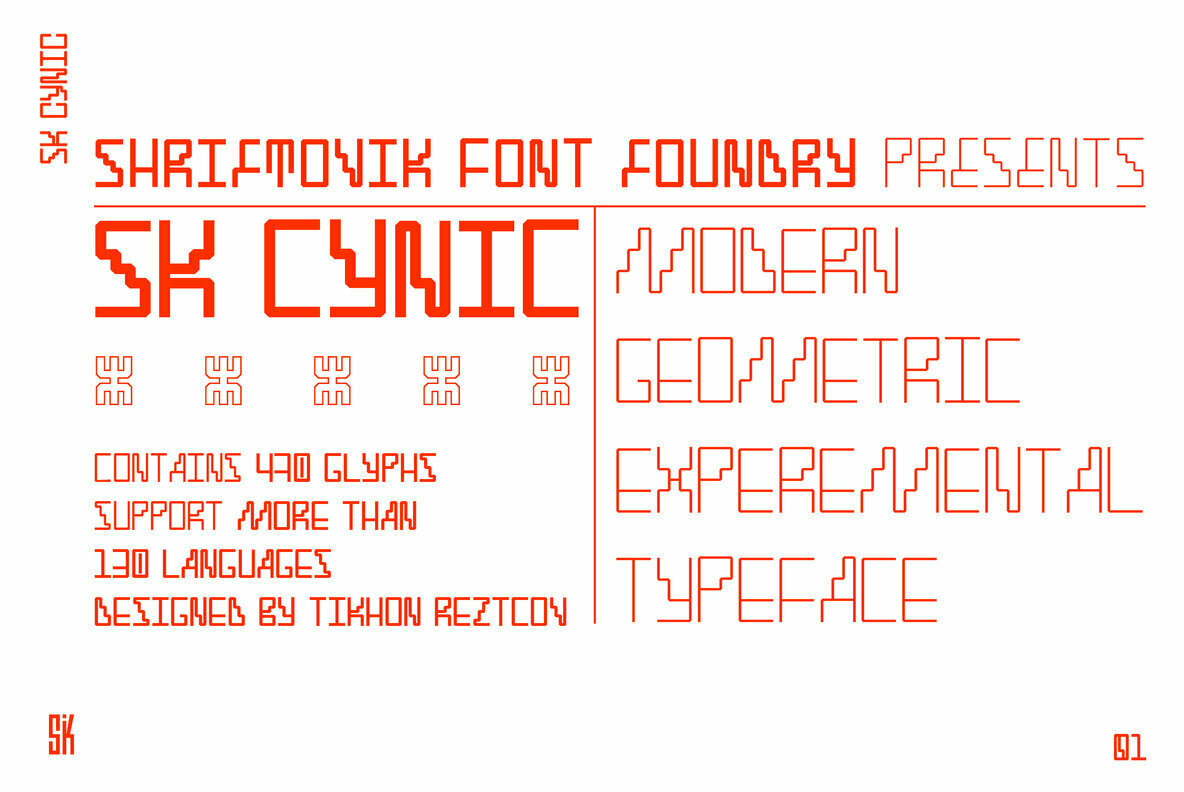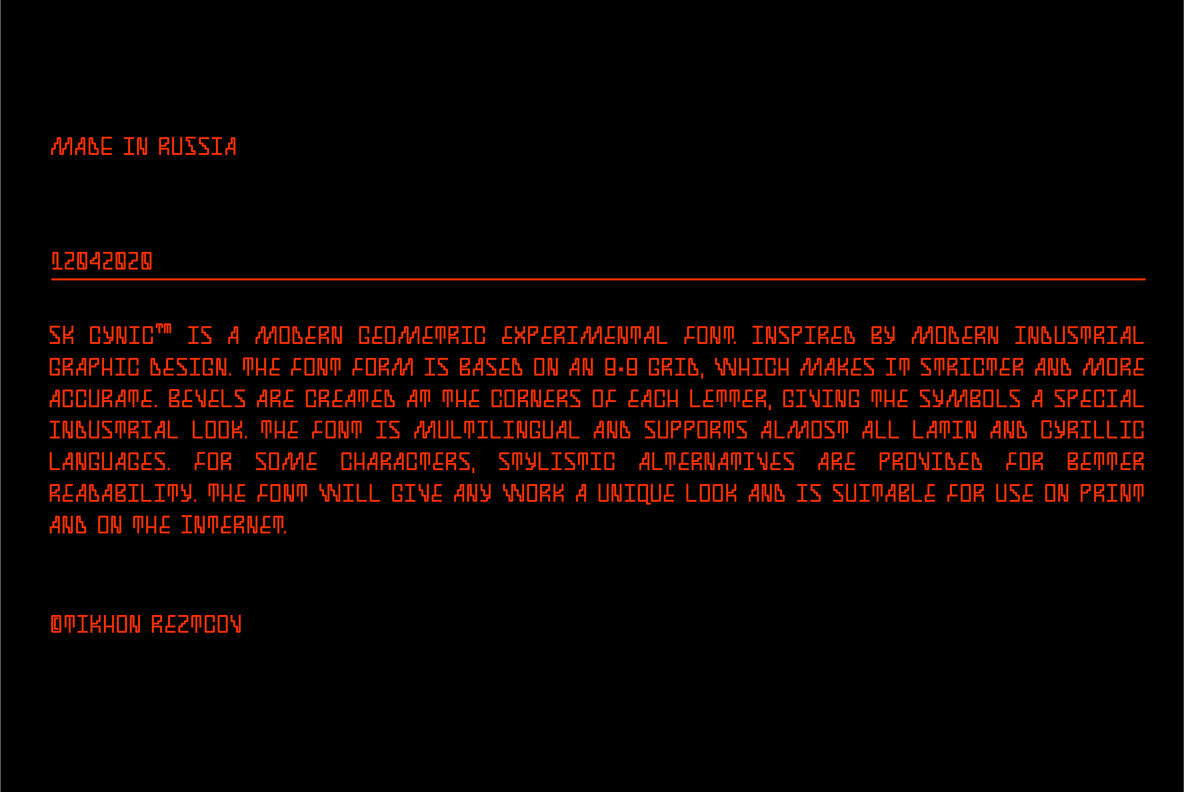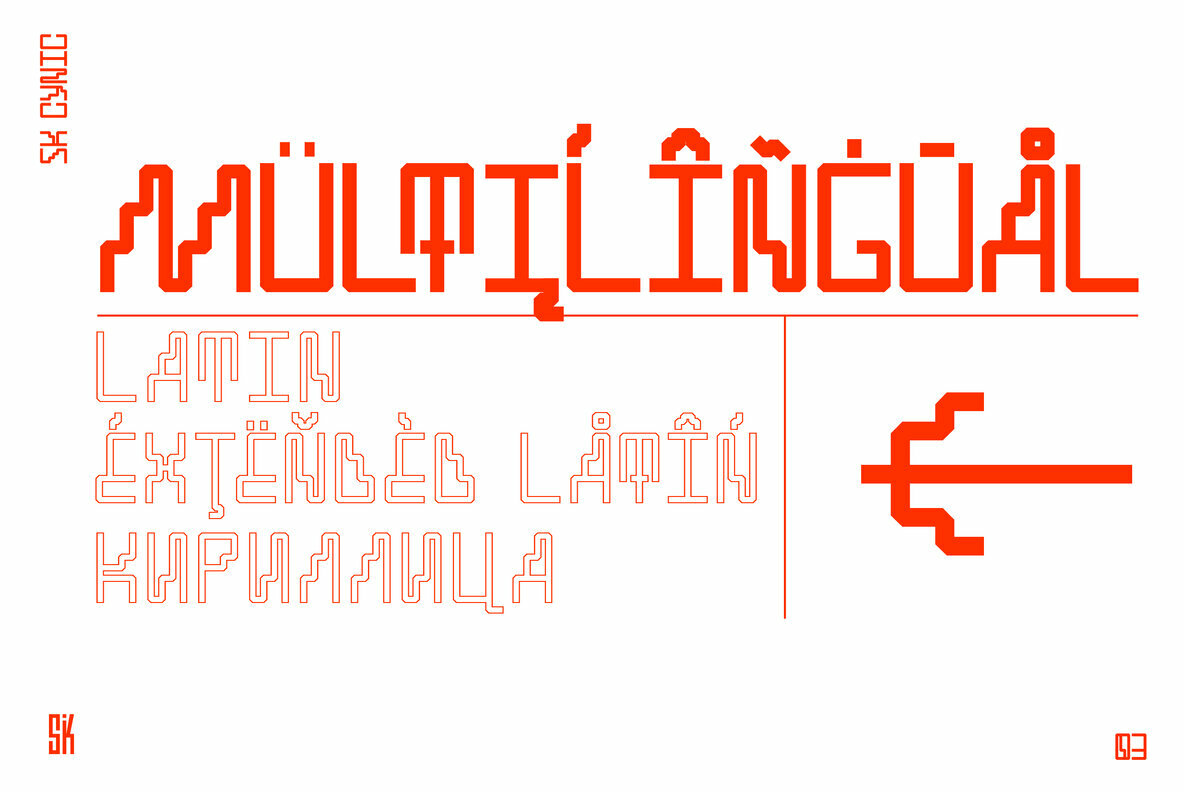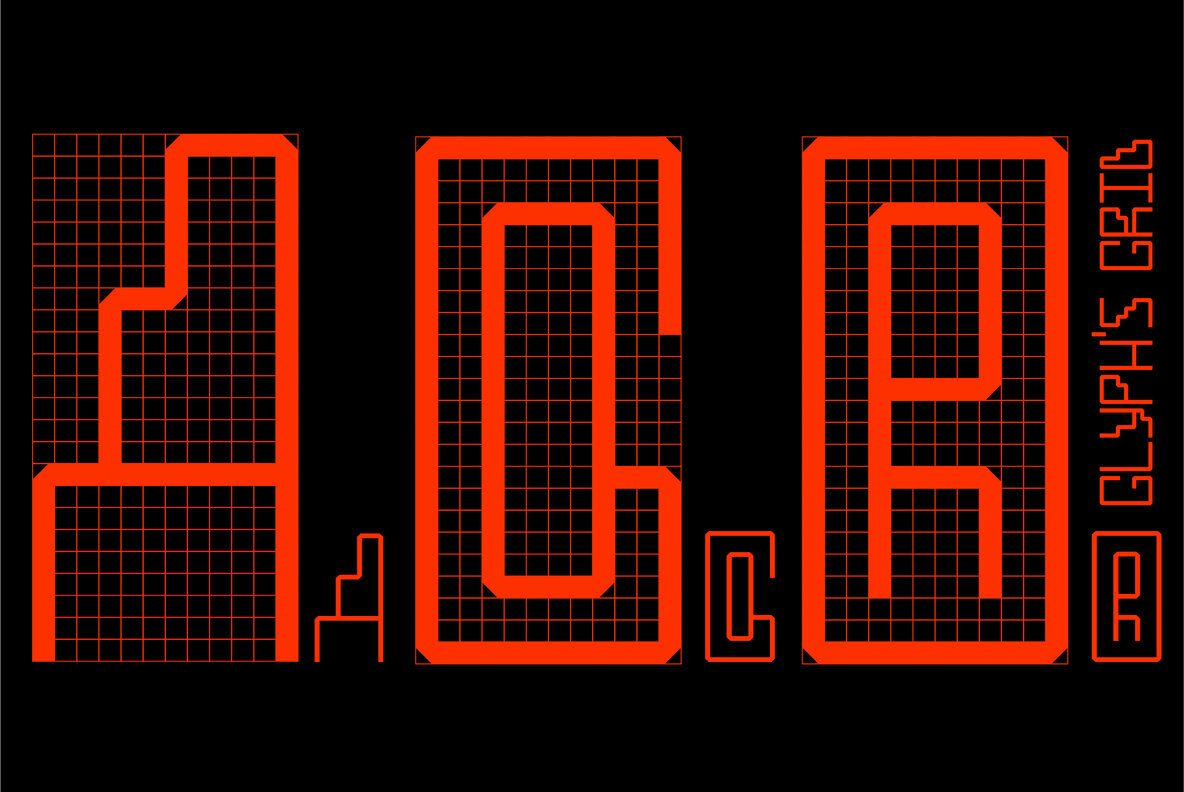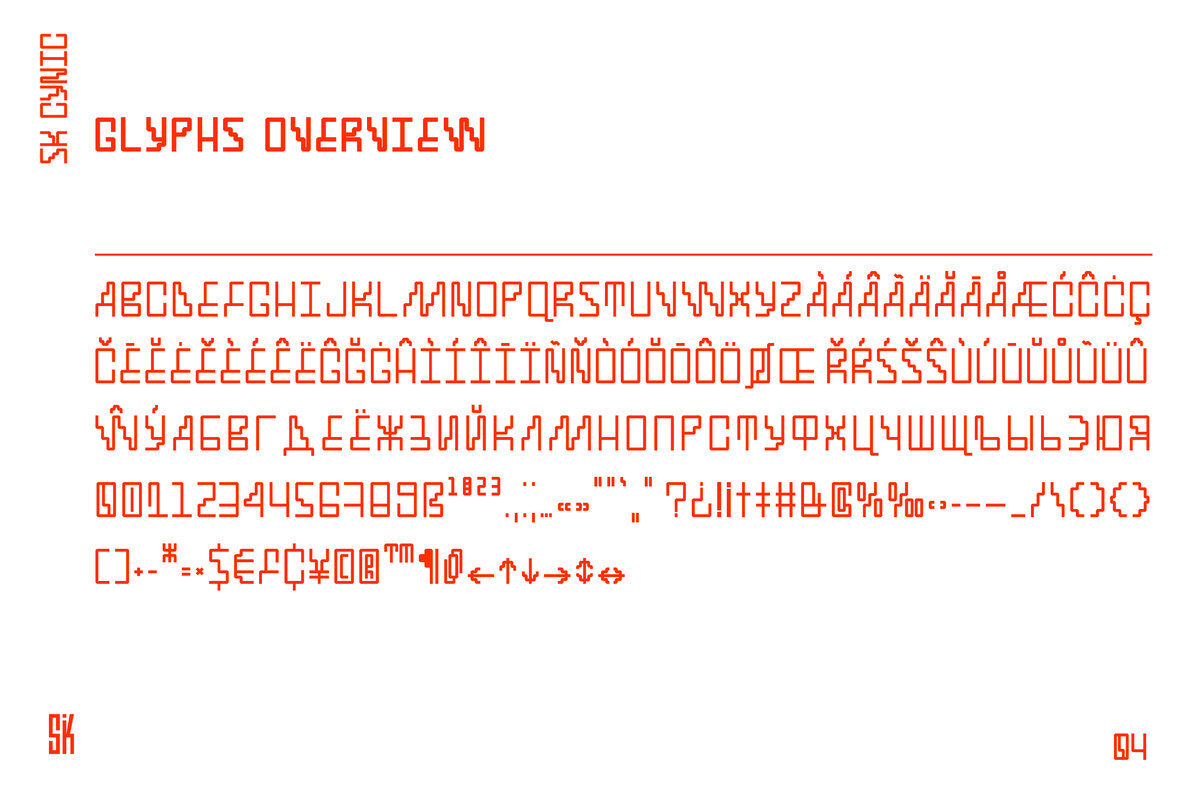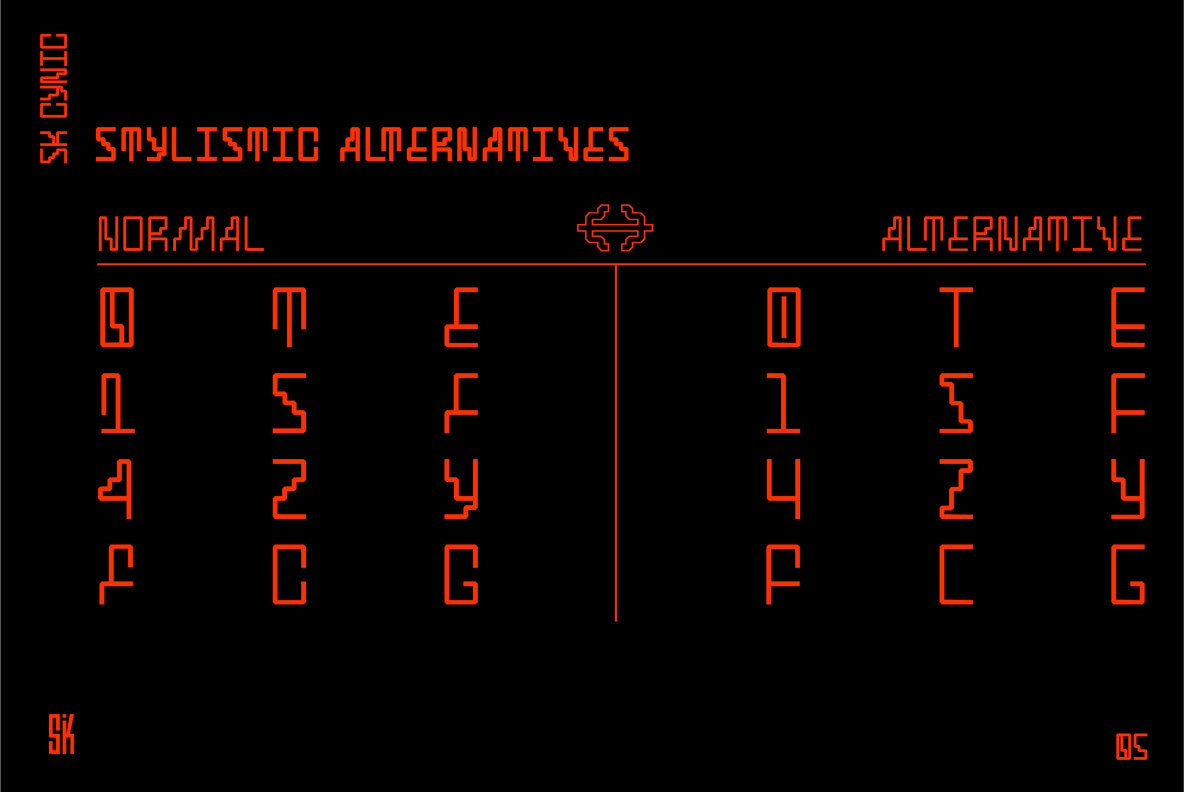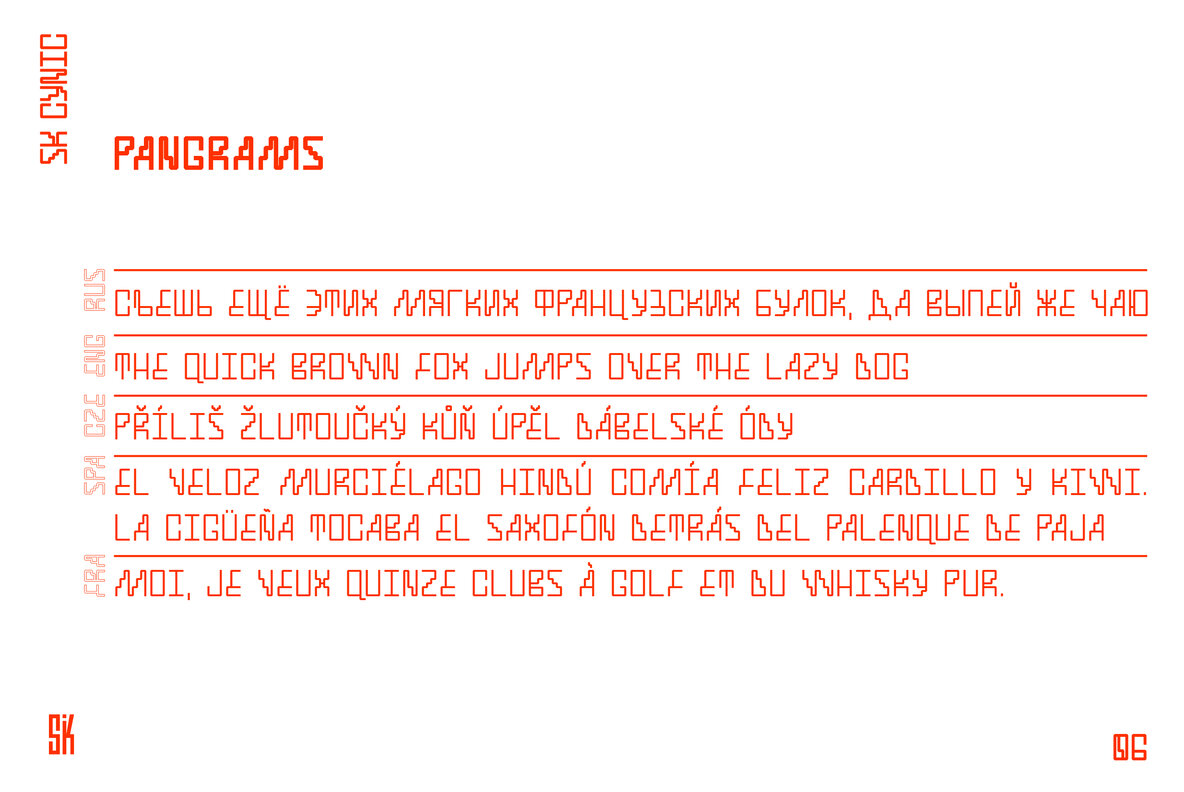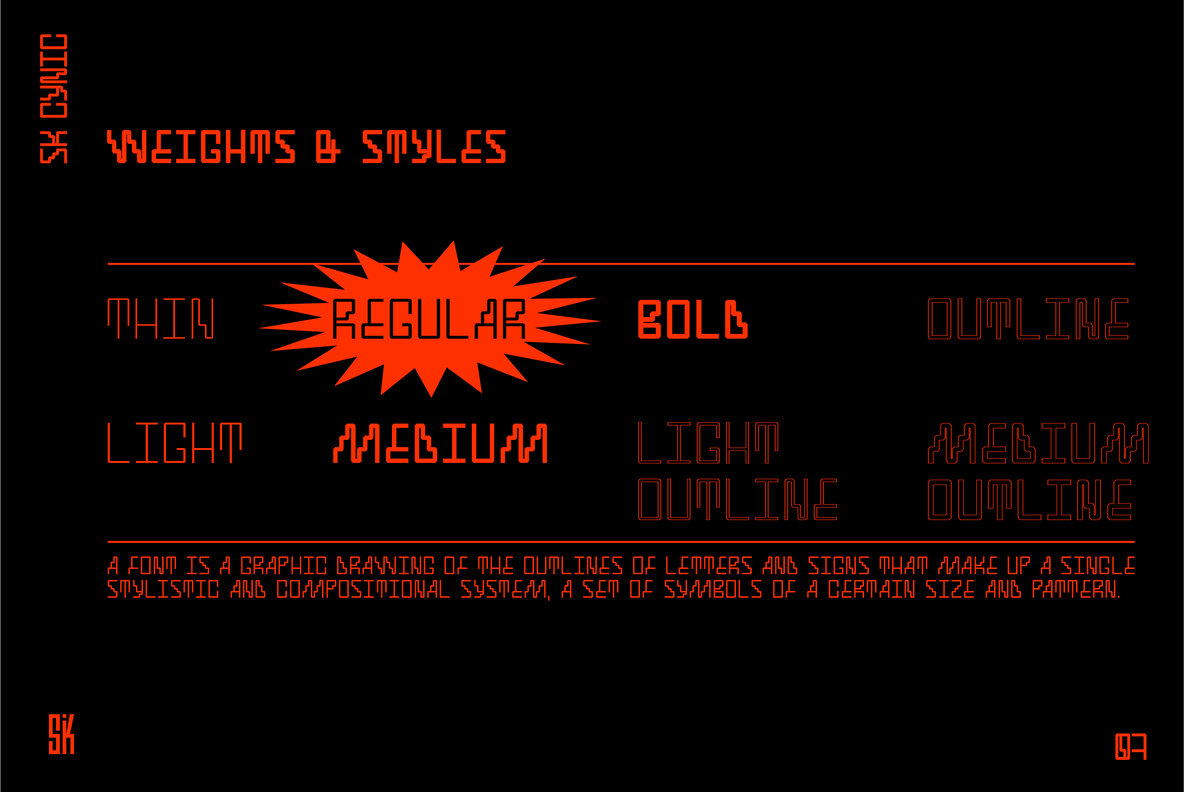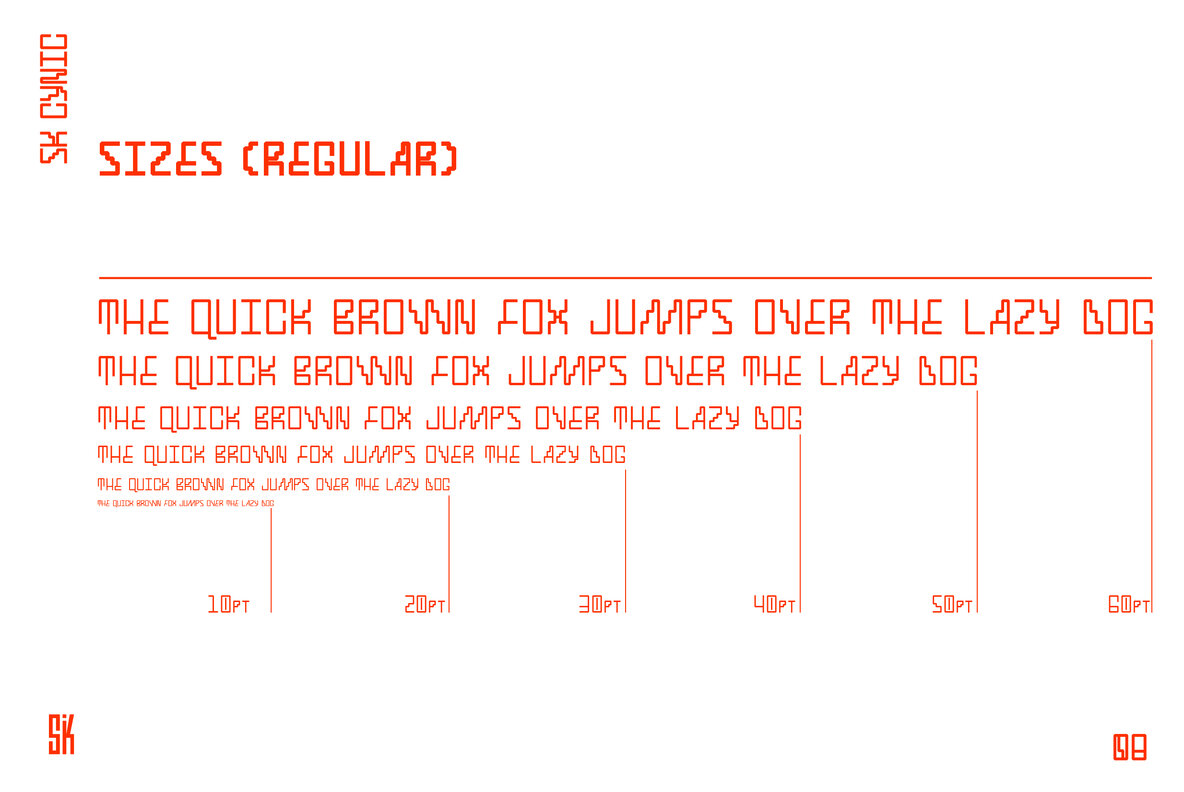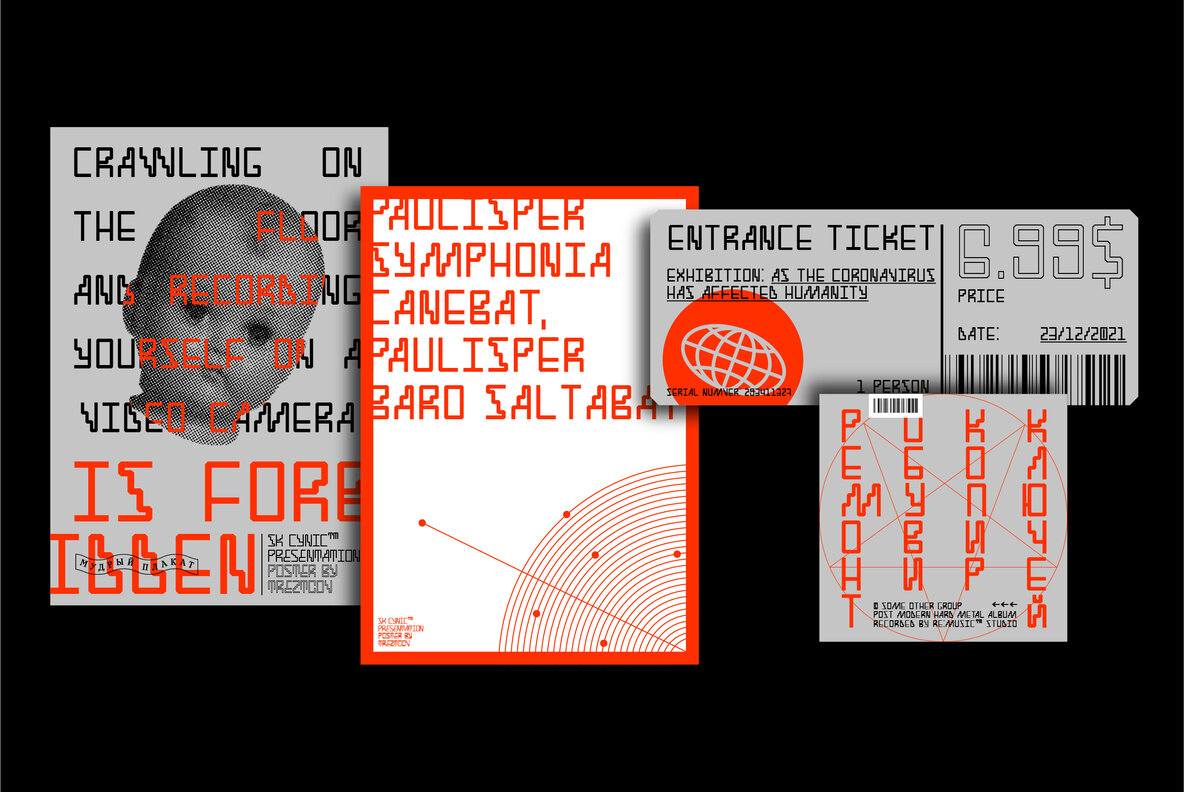
SK Cynic Font
SK Cynic is a modern geometric experimental font. Inspired by modern industrial graphic design. The font form is based on a 8x8 grid, which makes it stricter and more accurate. Bevels are created at the corners of each letter, giving the symbols a special industrial look. The font is multilingual and supports almost all Latin and Cyrillic languages. For some characters, stylistic alternatives are provided for better readability. The font will give any work a unique look and is suitable for use on print and on the Internet.